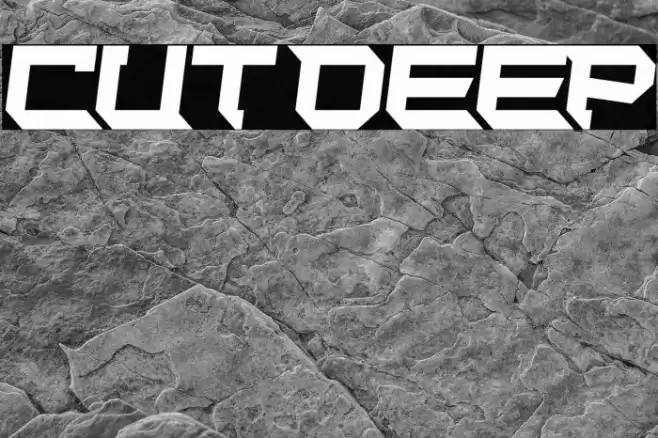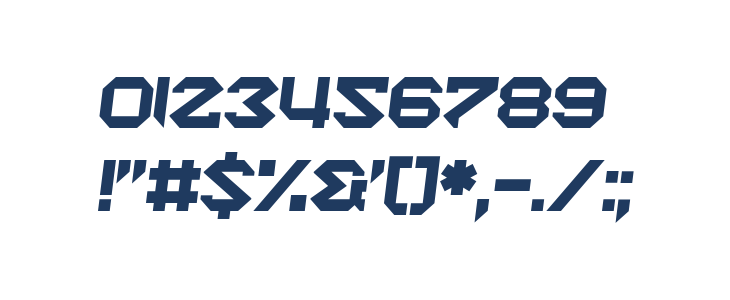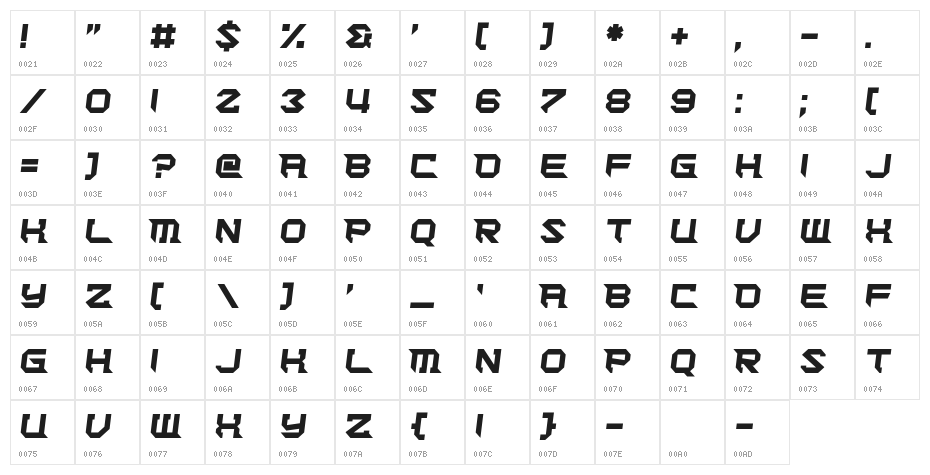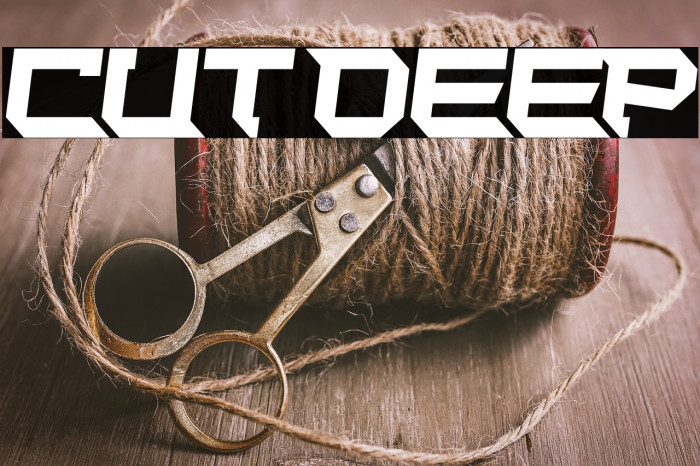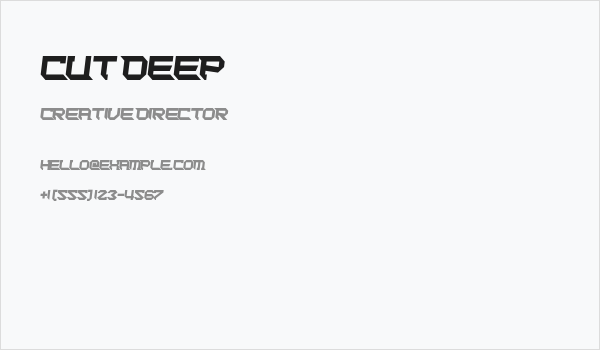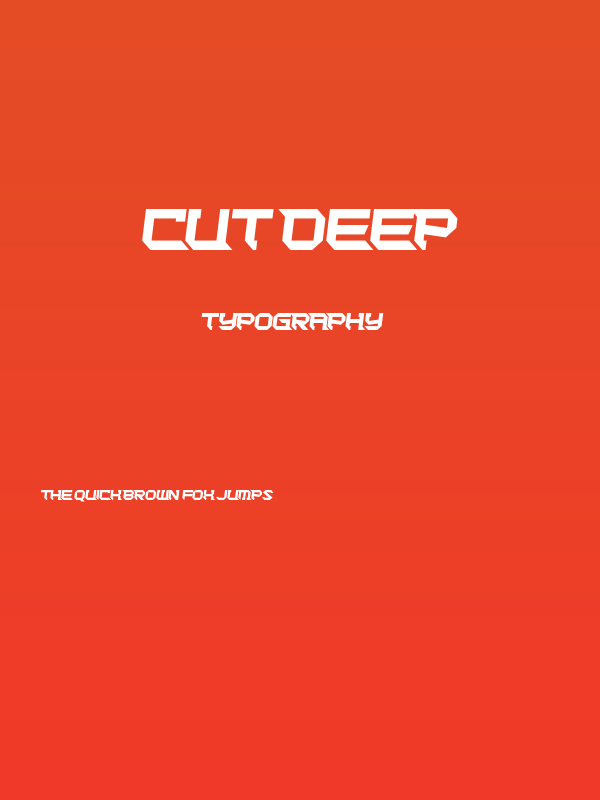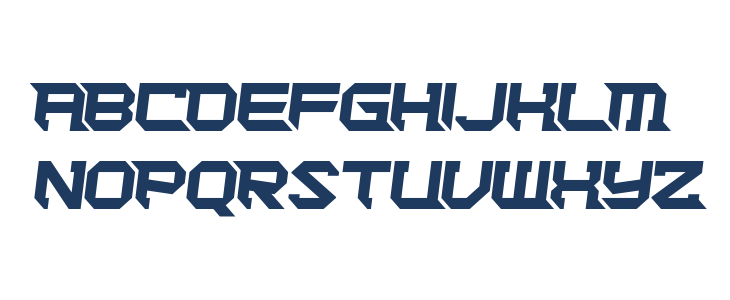
Cut Deep Font
Cut Deep Description
This font features a bold and angular design, characterized by sharp edges and a futuristic aesthetic. The letters are constructed with a geometric precision, giving them a dynamic and aggressive look. The uppercase and lowercase letters maintain a consistent style, with each character exhibiting a unique cut-out effect that enhances the overall edgy appearance. The numerals and special characters follow the same design principles, ensuring uniformity across all glyphs. This font's striking appearance makes it ideal for projects that require a modern and impactful visual statement.
- Proposed Projects: Ideal for sci-fi themed posters, video game titles, branding for tech companies, and edgy apparel designs.